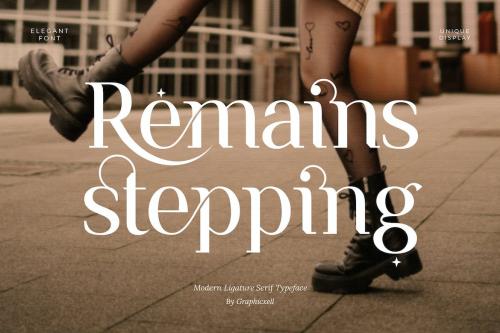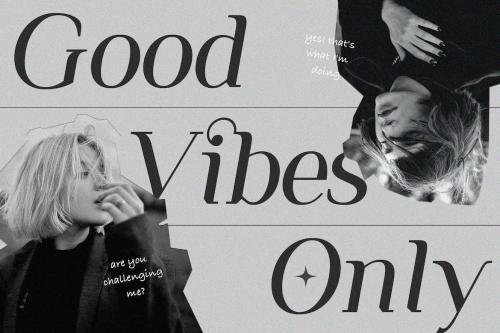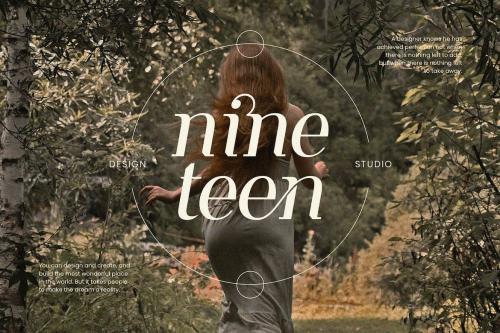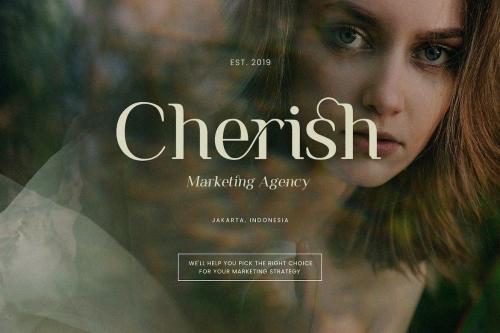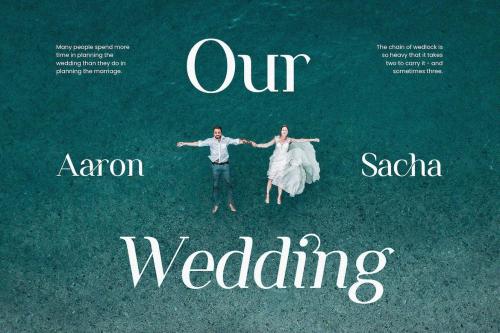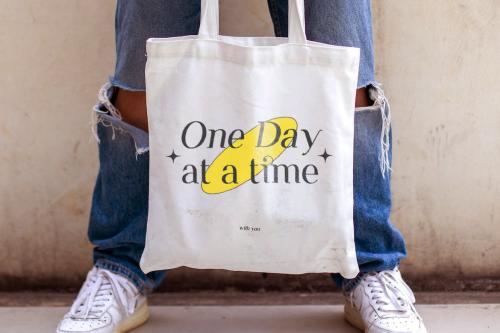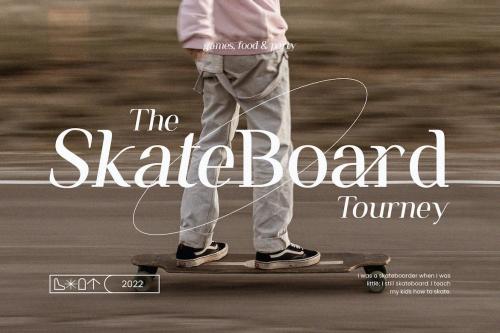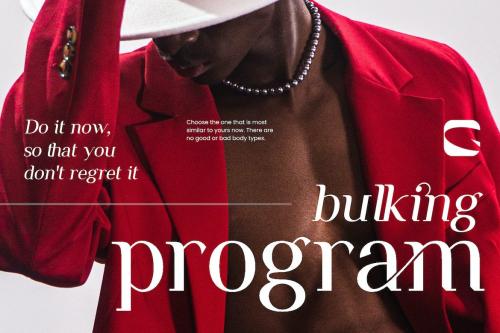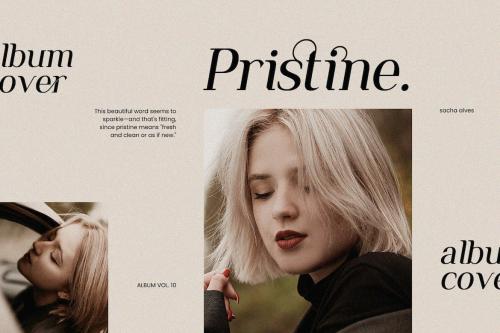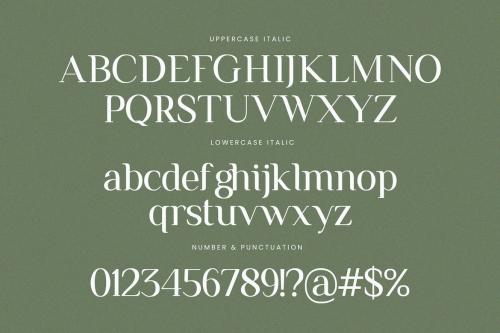
罗马字体连字符衬线 Serif Font
Remains Stepping Ligature Serif Font
**Remains Stepping Ligature Serif Font** inspired by the famous minimalist logo perfect for the purposes of designing templates, brochures, videos, advertising branding, logos, invitation, layout design, elegant crafting, beauty design and more.